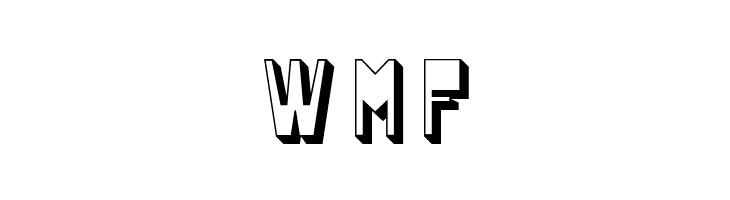
A classic serif font with elegant lines and moderate contrast, ideal for formal use.
A modern, edgy font with sharp, angular strokes and a bold appearance.
A bold, edgy font with a distressed, hand-drawn appearance.
A bold, vintage-inspired font with high contrast and geometric shapes.
A bold, retro-inspired font with geometric shapes and decorative elements.
Ornamental dingbat font with floral, abstract, and whimsical motifs.
A whimsical and artistic decorative font featuring abstract, face-like shapes.
A decorative font with intricate ornamental designs in square frames.
An elegant and decorative font with classic, intricate design elements.
Abstract symbol font with organic and geometric shapes in square icons.
A bold, geometric font with sharp angles and a modern, edgy style.
A bold, playful font with a vintage flair and strong visual impact.
A bold, playful font with a strong, condensed style.
A playful and whimsical cartoon-style font with detailed illustrations.
A bold, decorative font with high contrast and artistic letterforms.
A modern decorative font with bold, looped serifs and artistic detailing.
A bold, geometric font with Art Deco influences, perfect for vintage-inspired designs.
A playful, modern font with bold strokes and decorative circular embellishments.
A bold, geometric font with a strong, industrial look.
A bold, angular, and italicized font with a modern, high-impact style.
A bold, italic font with angular, futuristic design and strong visual impact.
A bold, handwritten font with a dynamic and expressive style.
A bold, irregular, and handcrafted font with a playful, geometric style.
A bold, angular font with geometric shapes and a monospaced appearance.
A bold, angular font with a modern and geometric style.
A bold, playful font with an irregular, hand-crafted appearance.